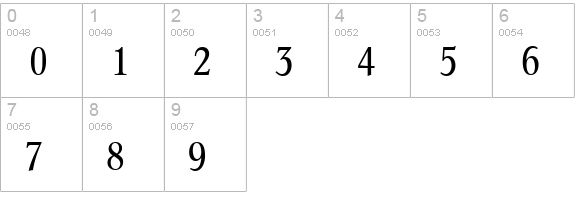
C791-Roman-Regular is the standard, neutral variant in the C791 typeface family \xE2\x80\x94 well suited to general body text, paragraphs, and standard typographic work.
C791-Roman-Regular is a classic and versatile font that exudes elegance and sophistication. With its clean lines and timeless appeal, this font is suitable for a wide range of design projects, from branding to editorial design. The balanced proportions and easy readability make C791-Roman-Regular a perfect choice for both print and digital applications. The best part? C791-Roman-Regular is available for free download at FontsMarket.com. Whether you're a designer looking to add a touch of refinement to your work or a business owner in need of a polished font for your marketing materials, C791-Roman-Regular is a fantastic choice that won't break the bank. Download it today and elevate your designs with this stunning and accessible font.